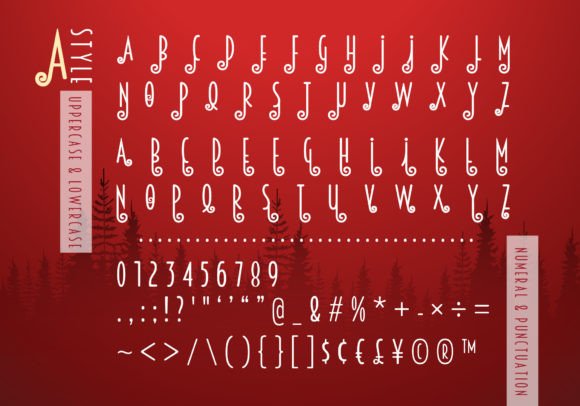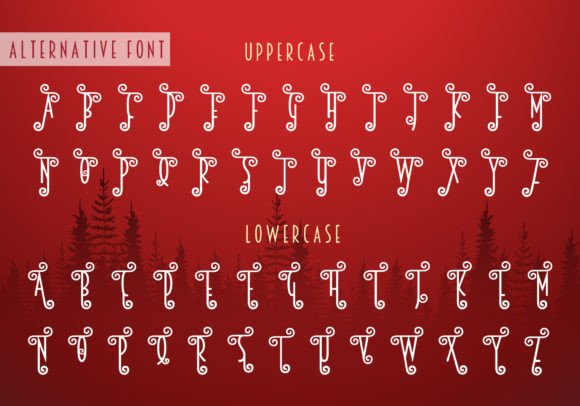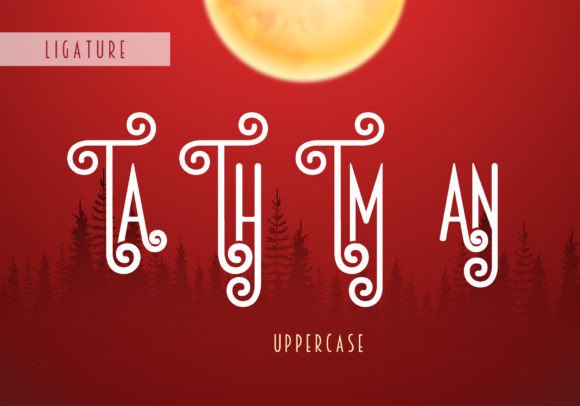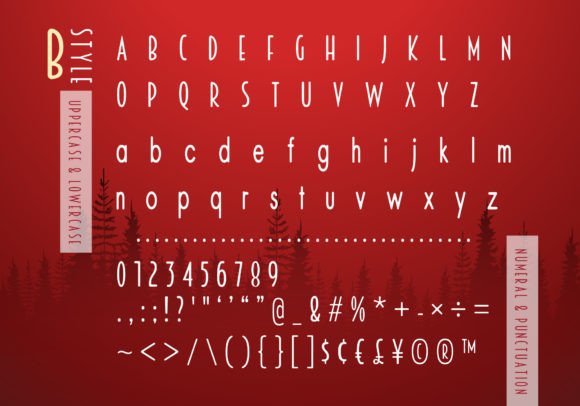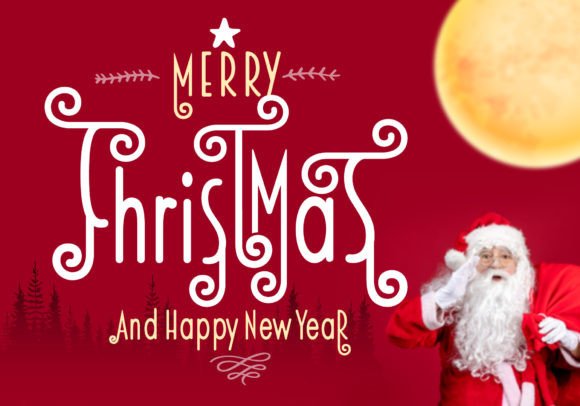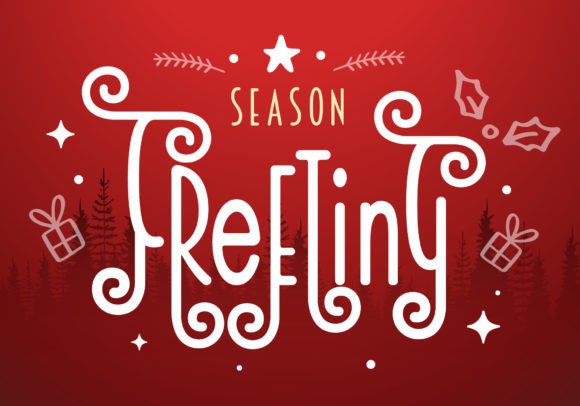
Introduction to Santa Night Font
Have you ever been scrolling through your favorite design platform, searching for the perfect font to add a touch of magic to your holiday project? That’s exactly what happened to me last year, and I stumbled upon the enchanting Santa Night Font. As I downloaded it, I knew I had found something special – a clean and smooth vintage-style display font that’s perfect for adding a lovely festive vibe to any Christmas project.
What I love about Santa Night Font is its unique combination of cute swirls and curls, which make it an instant hit for designers looking to add a touch of whimsy to their creative projects. With its transparent background and high-quality design, this font is a valuable resource for any designer looking to elevate their work. And the best part? It’s available for free download, making it an accessible design resource for everyone.
Key Features of Santa Night Font
- Unique and festive design ideal for holiday-themed creative projects
- Includes a wide range of characters, including uppercase and lowercase letters, numbers, and symbols
Honest Review: Santa Night Font
I recently stumbled upon the Santa Night Font, a free download that caught my eye with its unique and festive design. As a designer, I’m always on the lookout for high-quality design resources to elevate my creative projects, and this font definitely fits the bill.
What works well is the font’s playful and whimsical feel, perfect for holiday-themed projects or anything that needs a touch of winter wonder. The transparent background makes it easy to layer with other design elements, and the font itself is highly customizable, allowing for a range of styles and tones.
- Unique and festive design
- High-quality and highly customizable
- Perfect for holiday-themed projects or winter wonderland designs
One thing to note is that the font might be a bit too loud for some designs, so use it sparingly to avoid overwhelming the senses. ⚠️ Additionally, the font’s bold lines might not be suitable for smaller text sizes, so be mindful of that when using it.
Overall, I’m impressed with the Santa Night Font and would definitely recommend it to designers looking for a fun and festive design resource. It’s a great addition to any design library, especially during the holiday season. ✨
Tips for Getting the Most Out of Santa Night Font
To get the most out of the Santa Night Font, use it in conjunction with other festive design elements, such as holly, snowflakes, and holiday-themed graphics. Experiment with different font sizes, colors, and arrangements to create unique and eye-catching designs.
Common Use Cases for Santa Night Font
The Santa Night Font is commonly used in holiday-themed designs, such as Christmas cards, gift tags, and party invitations. It’s also perfect for creating festive social media graphics and holiday-themed presentations.